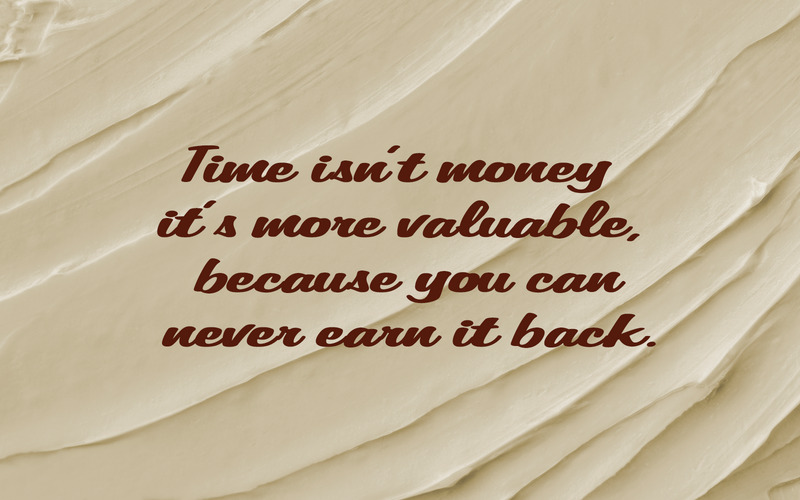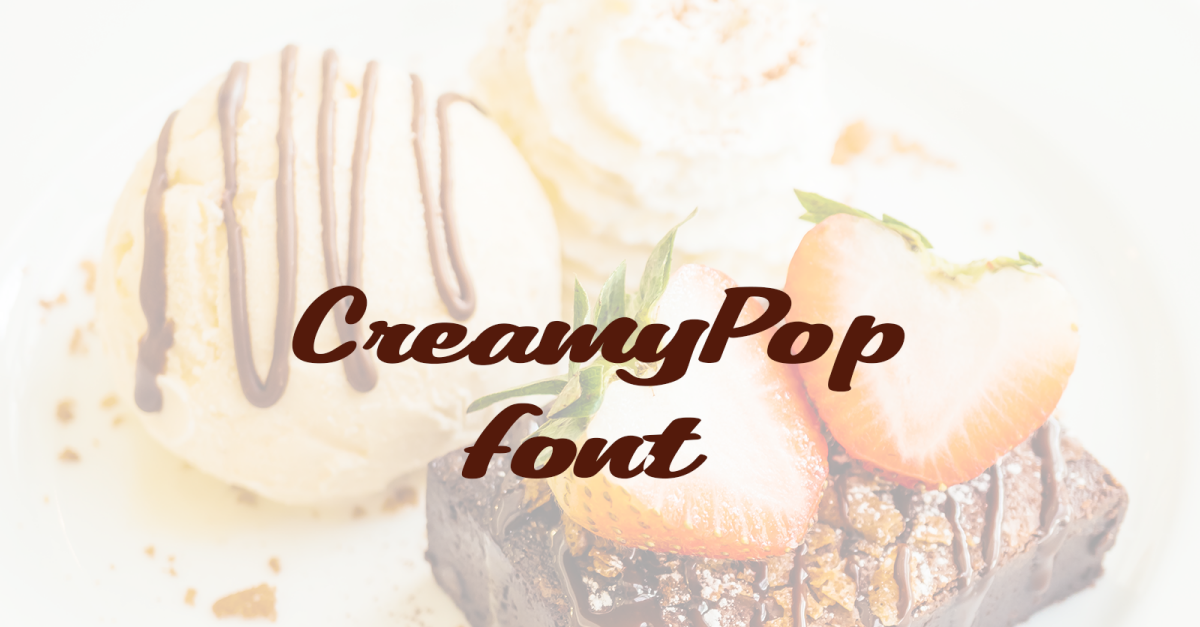
Introducing CreamyPop – the font that blends fun and flavor in every letter.
With bold curves and a fresh vibe, it’s made for brands that want to feel modern, casual, and full of life.
From burger joints to streetwear labels, CreamyPop adds instant personality.
Make your message sweet, stylish, and impossible to miss.